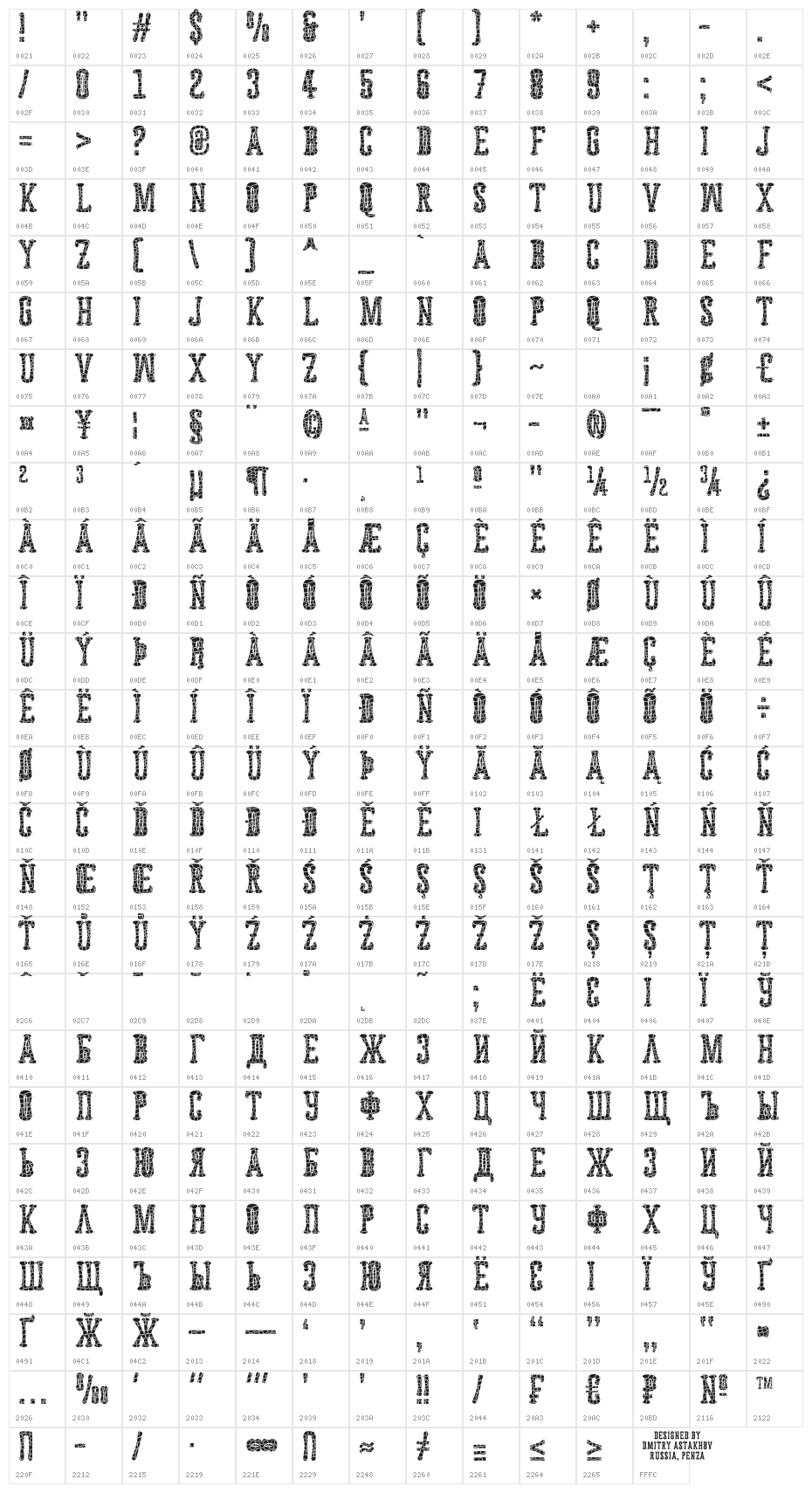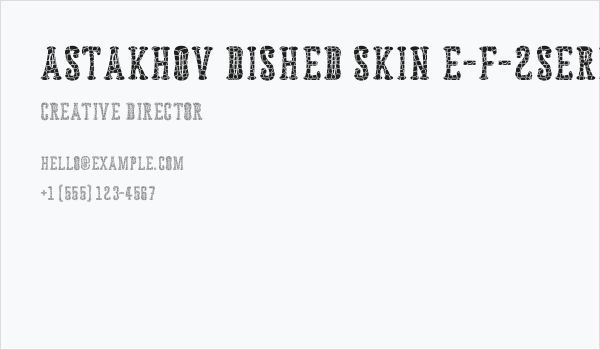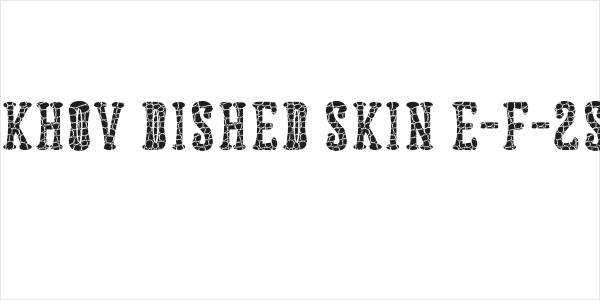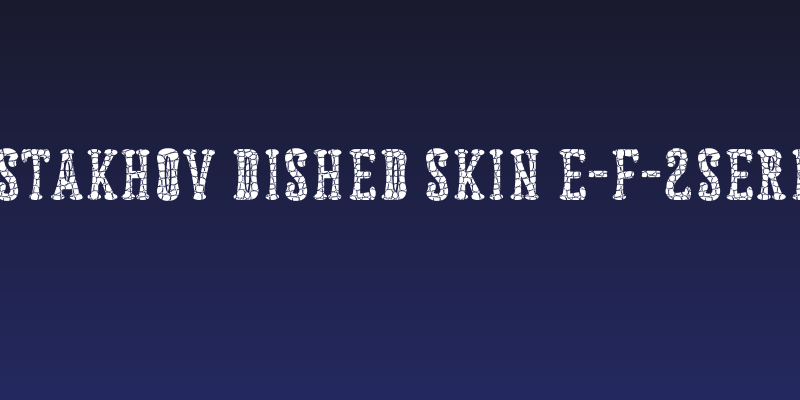
Astakhov Dished Skin E-F-2Serif Font
Astakhov Dished Skin E-F-2Serif Description
This font features a unique, textured design reminiscent of cracked or shattered surfaces, giving it a distinct and eye-catching appearance. The characters are bold and have a serif style, with each letter and number displaying a pattern that resembles broken glass or a web of cracks. This intricate design adds a layer of complexity and visual interest, making it suitable for projects that require a strong, artistic statement. The uppercase and lowercase letters maintain consistent styling, ensuring uniformity across text. The numbers and special characters are equally detailed, providing a cohesive look throughout.
| Proposed Projects | Ideal for posters, album covers, branding projects, and any design work that benefits from a bold, artistic flair. |